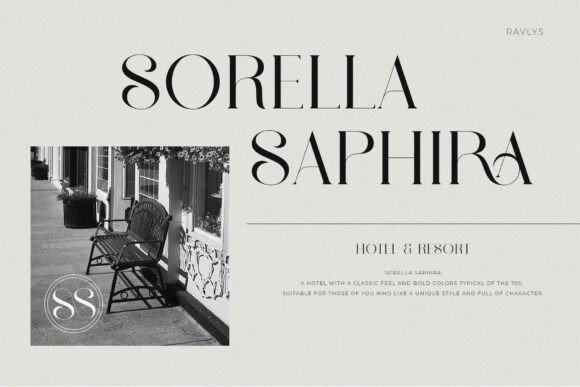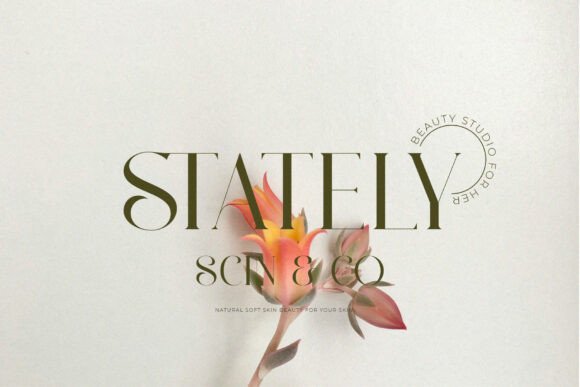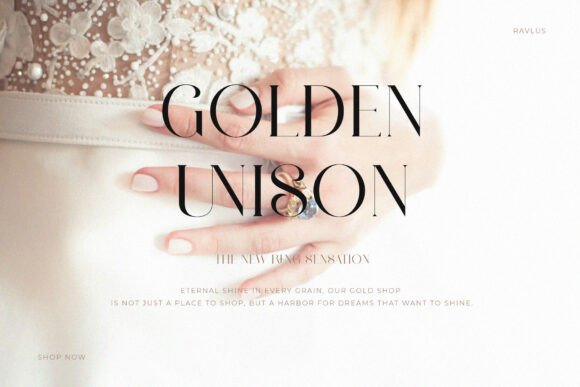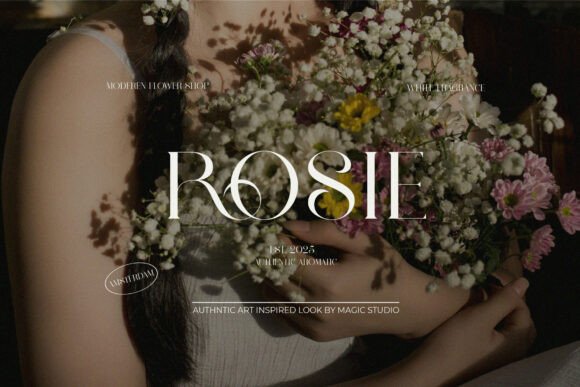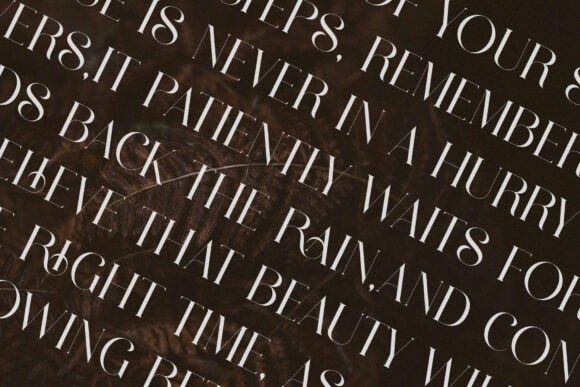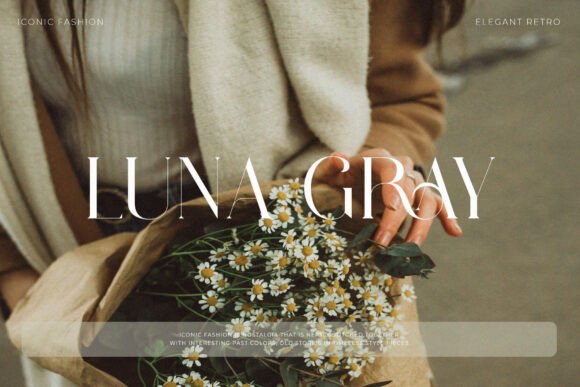
Introduction to Ravlys Font Font
Fonts play a crucial role in design, and the Ravlys Font font is a typeface that brings both character and versatility to any project. Whether you’re working on a branding project, a website, or a print design, the Ravlys Font font offers a unique style that can elevate your work.
Ravlys is a charming and soft serif typeface that speaks with elegance and a gentle personality.
With subtle curves and fine-tuned contrast, Ravlys is perfect for designs that need a touch of femininity and grace Its sophisticated form makes it ideal for branding projects, wedding stationery, fashion editorials, and upscale packaging.
Key Features of Ravlys Font Font
Why Choose Ravlys Font Font?
The Ravlys Font font is more than just a typeface – it’s a design tool that helps you communicate your message with style and clarity. Its unique character set and versatile design make it suitable for a wide range of applications, from elegant invitations to bold headlines.
With its carefully crafted letterforms and balanced proportions, the Ravlys Font font ensures readability and visual appeal across all mediums.
What makes Ravlys Font font special?
The Ravlys Font font stands out with its unique design, exceptional readability, and versatility across various design applications.